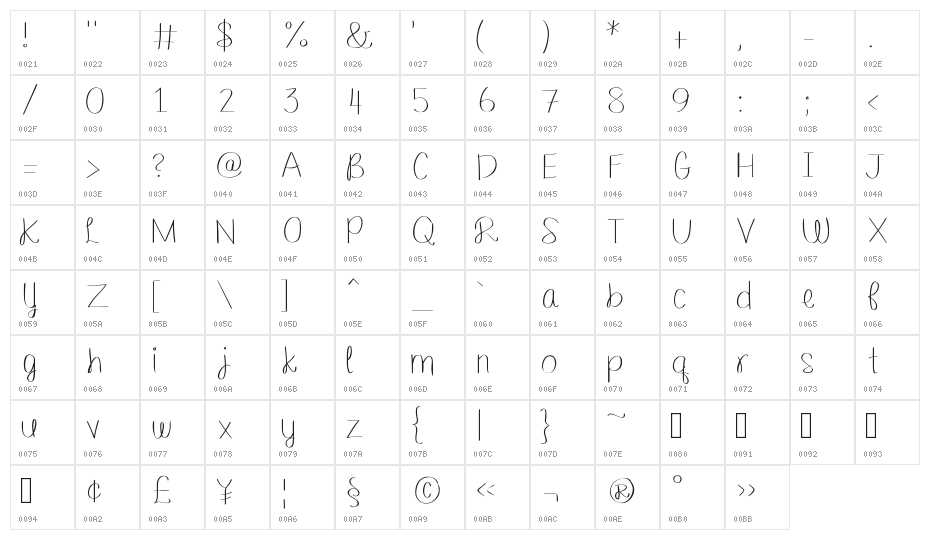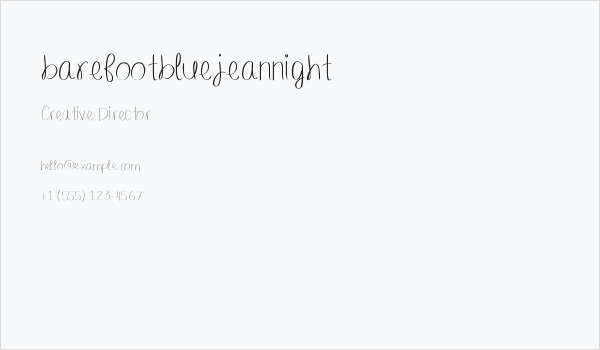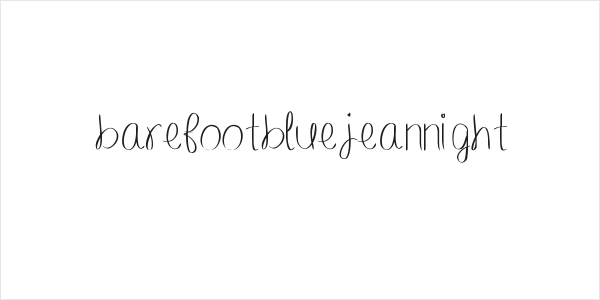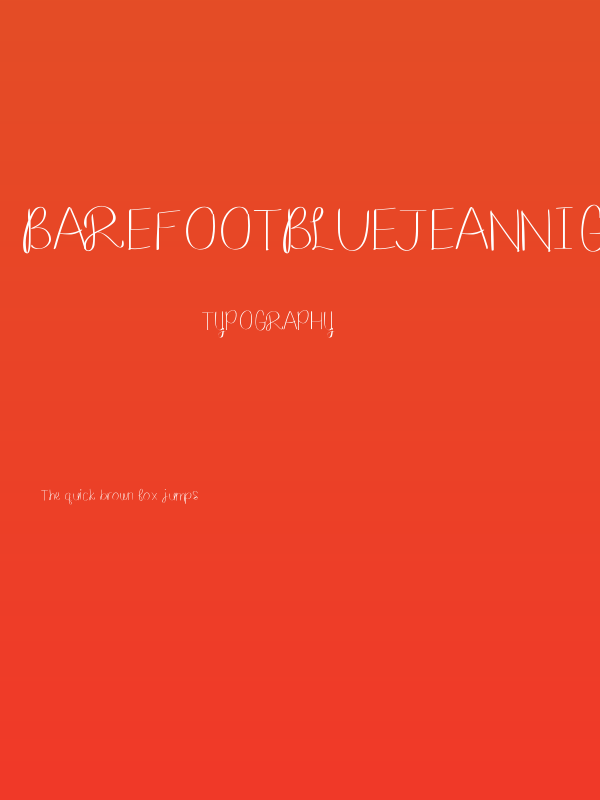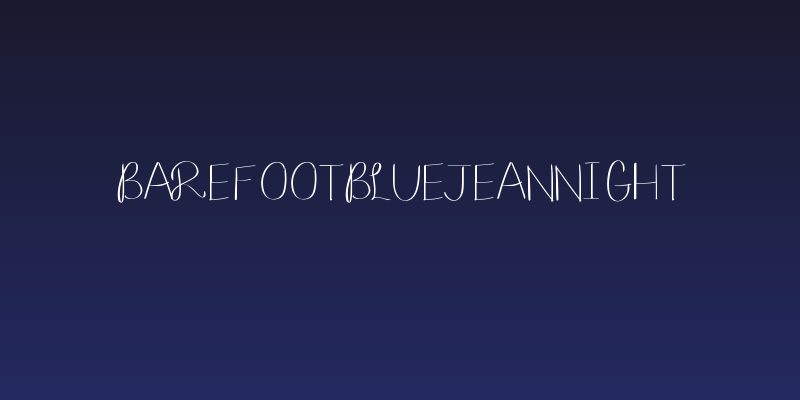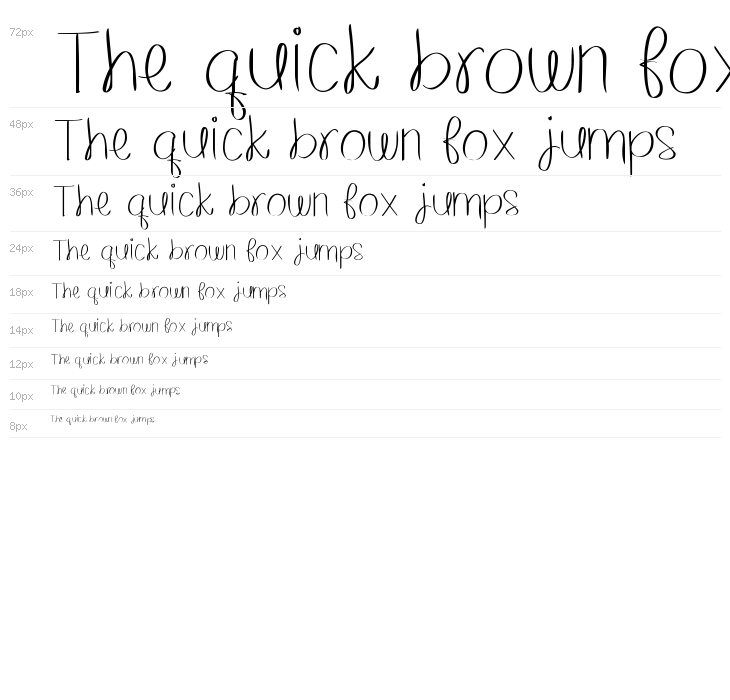
barefootbluejeannight Font
barefootbluejeannight Description
This font features a playful and whimsical style, combining elements of both script and sans-serif. The uppercase letters are tall and narrow with a slight slant, giving them a dynamic and lively appearance. The lowercase letters are more rounded and flowing, adding a touch of elegance and charm. The numbers are consistent with the overall style, maintaining a balance between the playful and the structured. Special characters are creatively designed, fitting seamlessly with the rest of the font. The strokes are thin and consistent, providing a clean and modern look. This font is versatile, suitable for a variety of creative projects.
| Overall Style | Playful, Modern |
| Proposed Projects | Ideal for greeting cards, invitations, playful branding, and children's books. |